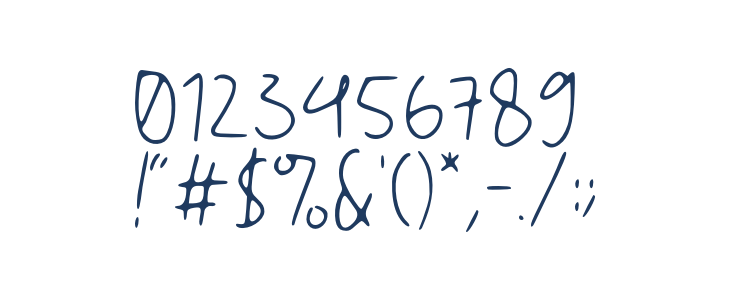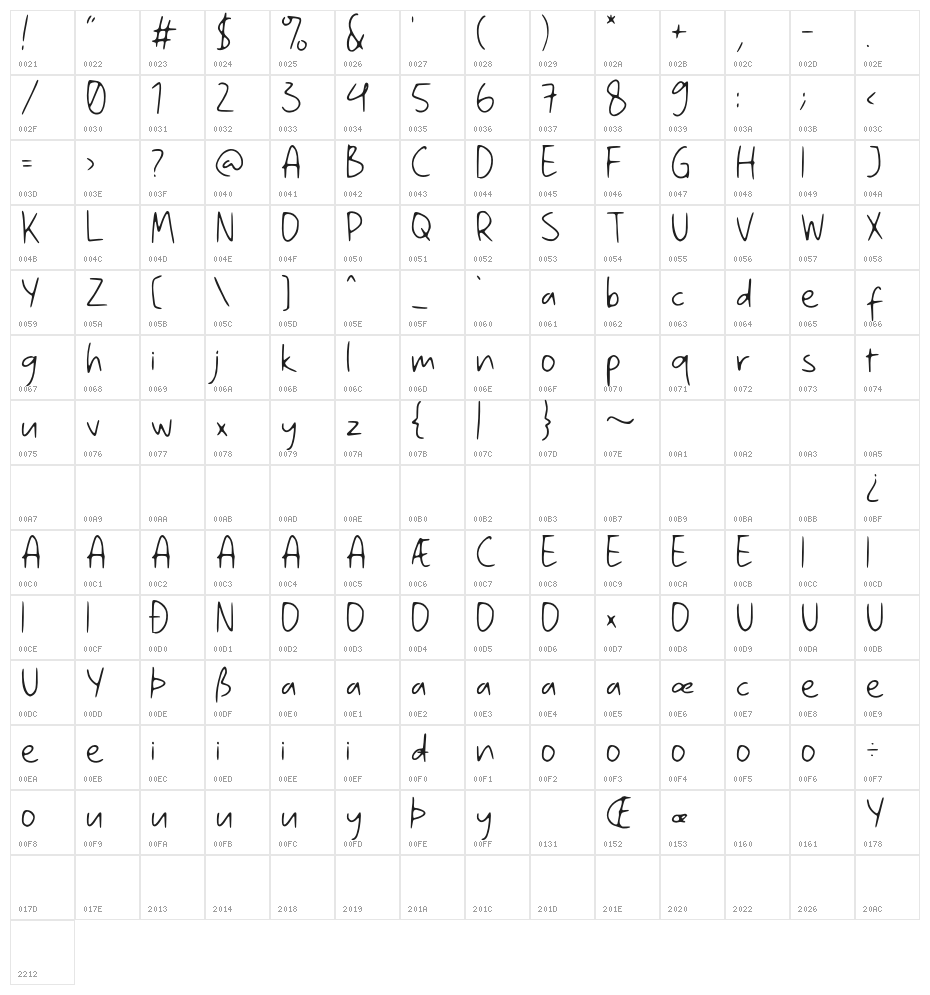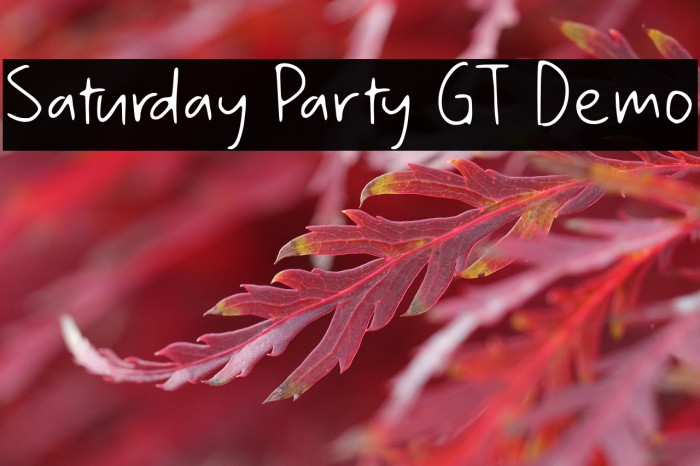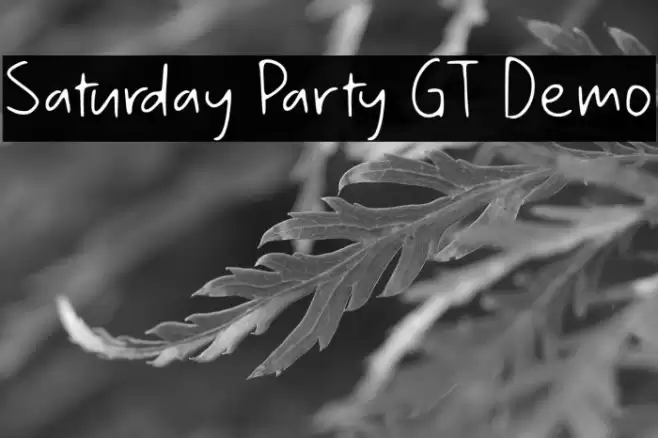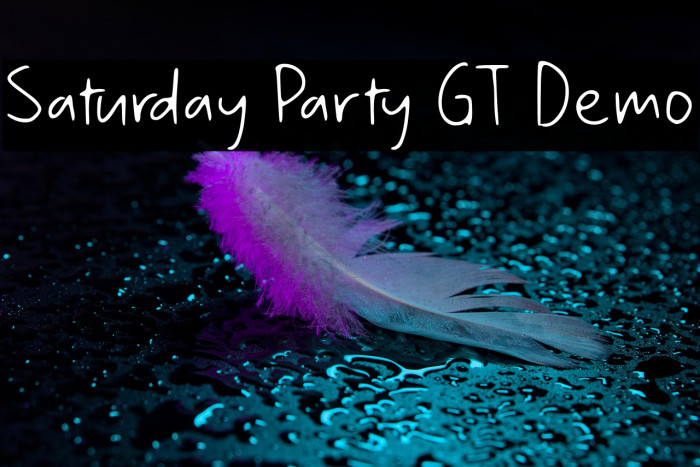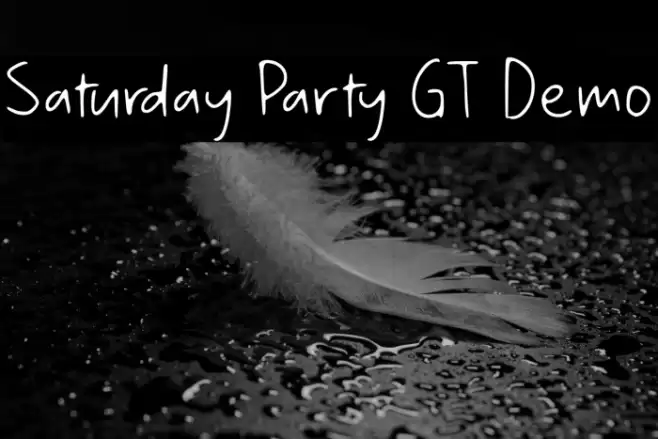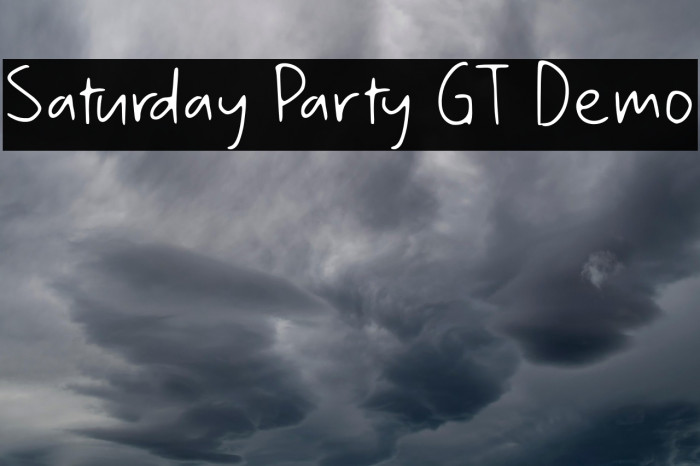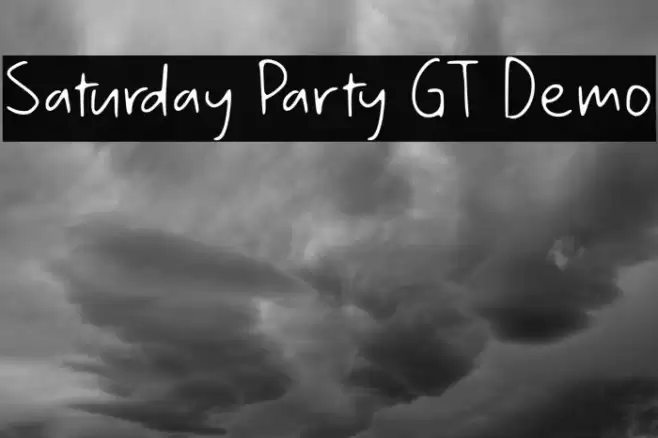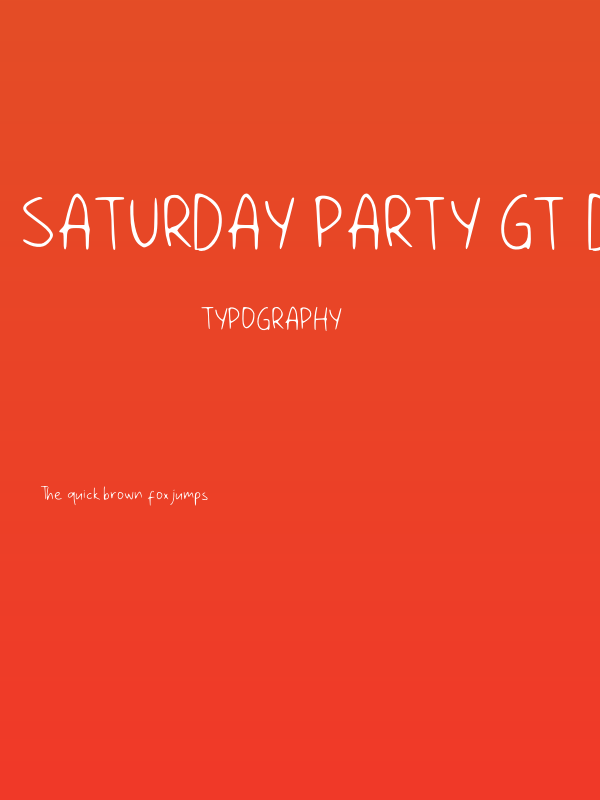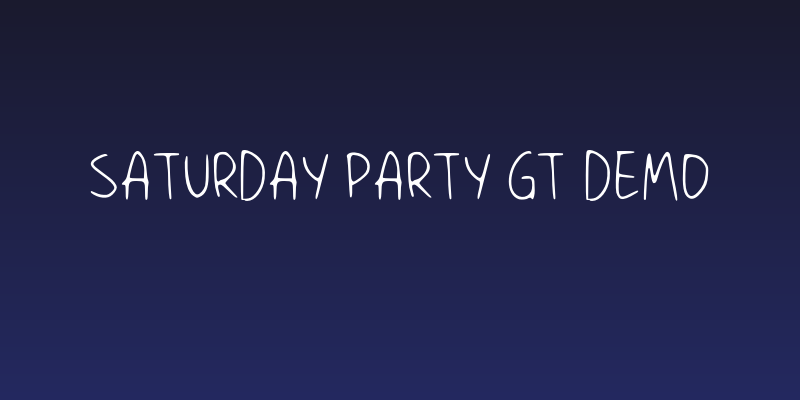
Saturday Party GT Demo Font
Saturday Party GT Demo Description
This playful and energetic font features a handwritten style that exudes a casual and friendly vibe. The letters are slightly irregular, giving it a natural and spontaneous appearance. The uppercase and lowercase characters maintain a consistent flow, with rounded edges and a slight tilt that adds to its informal charm. The numerals and special characters are crafted with the same lively spirit, making them perfect for creative and fun projects. This font is ideal for designs that require a personal touch, such as invitations, greeting cards, and playful branding.
| Proposed Projects | Ideal for invitations, greeting cards, playful branding, and creative projects. |